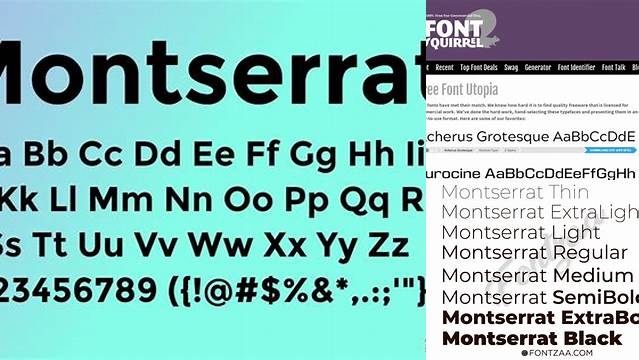
Fonts Unleashed: Montserrat & FontSquirrel Guide
Hey guys! Ever wondered how to spice up your designs and make them pop? Well, you're in the right place! Today, we're diving headfirst into the awesome world of fonts, with a special focus on a super popular font called Montserrat and the amazing resource that is FontSquirrel. I will break down how to snag these fonts and use them in your projects. Get ready to level up your design game!
H2: Discovering the Allure of Montserrat Font
Let's kick things off by talking about Montserrat. This font is a total gem, and it's easy to see why it's become a favorite for designers all over the globe. Think of it as a modern, versatile workhorse. Montserrat is a sans-serif font, meaning it lacks those little strokes (serifs) you see at the ends of letter strokes in fonts like Times New Roman. This lack of serifs gives Montserrat a clean, contemporary look, making it perfect for both headings and body text. Now, why is it so popular? Well, for starters, it's incredibly readable. Whether you're looking at it on a tiny phone screen or a massive billboard, Montserrat remains clear and easy to understand. That readability is key when you're aiming to communicate something important.
Beyond its clarity, Montserrat has a certain geometric charm. It’s not overly stylized, which means it doesn't distract from the message. It's a font that says, “Hey, I'm here to help you get your point across.” It is friendly yet professional. This makes it suitable for a vast range of projects, from websites and apps to print materials like brochures and posters. Imagine you're designing a website for a tech startup. You want a font that reflects innovation and clarity. Montserrat is your go-to. Or, perhaps you're creating marketing materials for a non-profit organization. Again, Montserrat fits the bill, conveying a sense of trust and approachability.
Furthermore, the Montserrat family is extensive. It offers numerous weights and styles, from thin and light to bold and black. This variety allows you to create visual hierarchy and emphasis within your designs. You can use Montserrat Light for subtle subheadings, Montserrat Regular for body text, and Montserrat Black for impactful headlines. This versatility helps you to create a cohesive design. Then comes the bonus: Montserrat is free to use. That's right, you can download and use this awesome font for personal and commercial projects without spending a dime. This is a significant advantage, especially for small businesses, freelancers, or anyone who's just starting out. It opens up a world of design possibilities without breaking the bank. So, if you haven't already, give Montserrat a try. You'll quickly understand why it's a design darling. This font is a true workhorse that can elevate any design project. That is why it's popular. The beauty of Montserrat lies in its simplicity and adaptability, making it a must-have in your font arsenal. What are you waiting for? Get this font!
H3: Downloading Montserrat from FontSquirrel
Alright, let's get down to the nitty-gritty and learn how to snag Montserrat from FontSquirrel. The process is super easy, and you'll be rocking this awesome font in no time. First things first, head over to FontSquirrel. Type fontsquirrel.com into your browser. Once you're on the site, you can use the search bar to find Montserrat. Simply type “Montserrat” into the search field and hit enter. Alternatively, you might be able to browse through the featured fonts or the sans-serif category. FontSquirrel is well-organized, so finding what you are looking for should be easy.